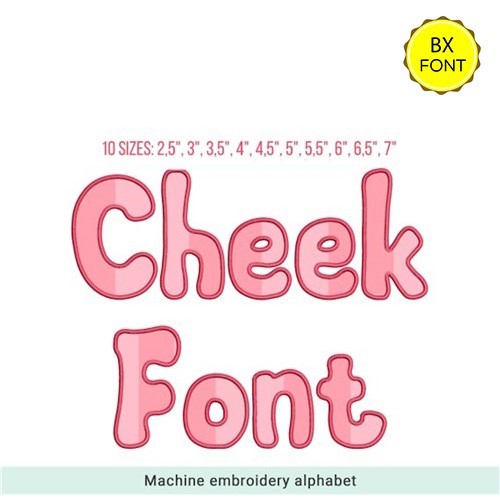
Maya Kreations is happy to present Chubby Cheeks Embroidery Font - Rounded Block Style - 10 Sizes: 2.5" TO 7" - BX font machine embroidery font which has Playful rounded block machine embroidery font in soft pink, ideal for cheerful designs on children's clothing and accessories. Available in BX font and Embrilliance formats. included. If you would like to view more embroidery fonts and alphabets please search our embroidery fonts page.
Chubby Cheeks Embroidery Font - Rounded Block Style - 10 Sizes: 2.5" TO 7" - BX font